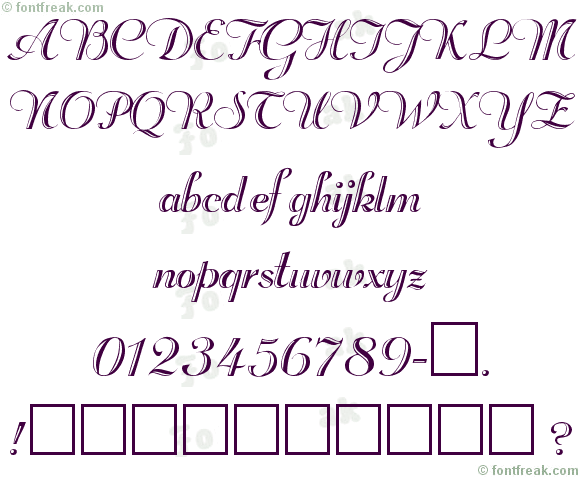
Rechtman Plain
About Rechtman
The Rechtman font, designed by David Rakowski in 1992, is a captivating script typeface that masterfully blends elegance and readability. This shareware font exudes a refined charm with its flowing, cursive letterforms, making it an excellent choice for various creative projects. The visual characteristics of Rechtman are marked by a medium stroke weight, creating a balanced appearance that ensures legibility without sacrificing style. The subtle contrast between thick and thin strokes, along with its well-considered spacing, contributes to its sophisticated yet approachable aesthetic. Decorative elements, such as elegantly curled tails and ligatures, enhance its script-like quality, making it visually appealing.
Rechtman is particularly well-suited for wedding invitations, where its romantic flair can add a touch of elegance to the special day. It also shines in the realm of restaurant menus, providing an upscale feel that can elevate the dining experience. Additionally, the font is ideal for movie posters, where its distinctive style can help convey the mood and theme of the film. Graphic designers and content creators will find Rechtman an attractive option for branding projects, allowing them to infuse a sense of personality and creativity into their designs.
The target audience for the Rechtman font includes graphic designers, small business owners, and anyone looking to add a unique typographic element to their work. Its versatility makes it a valuable addition to any designer's toolkit. With the Rechtman font free download available, users can easily access this exquisite typeface to enhance their projects. What sets Rechtman apart is its perfect blend of sophistication and approachability, making it a standout choice for those aiming to create memorable and impactful designs.